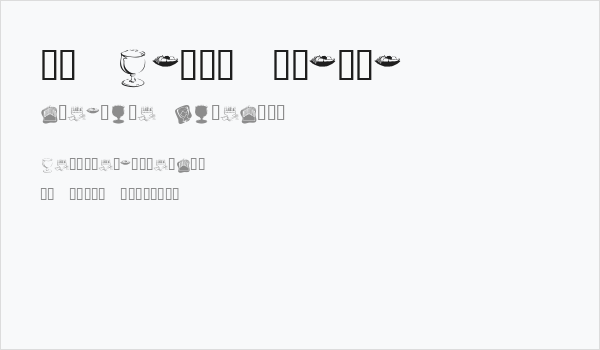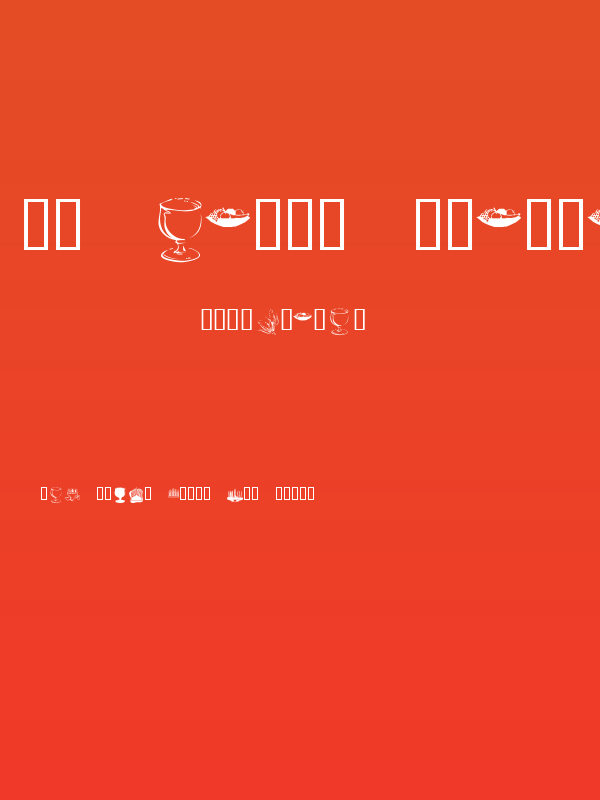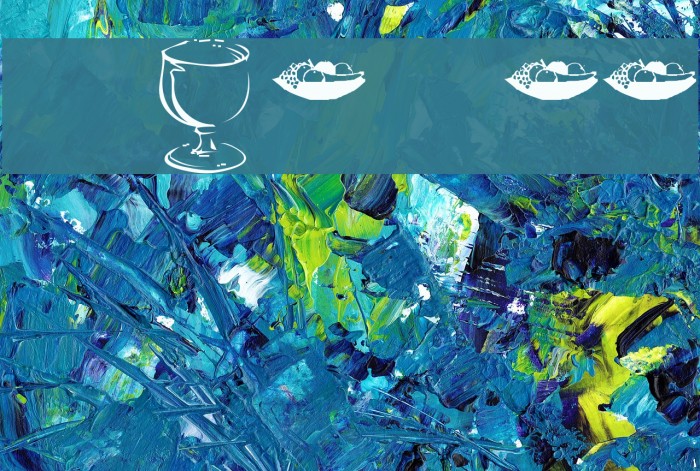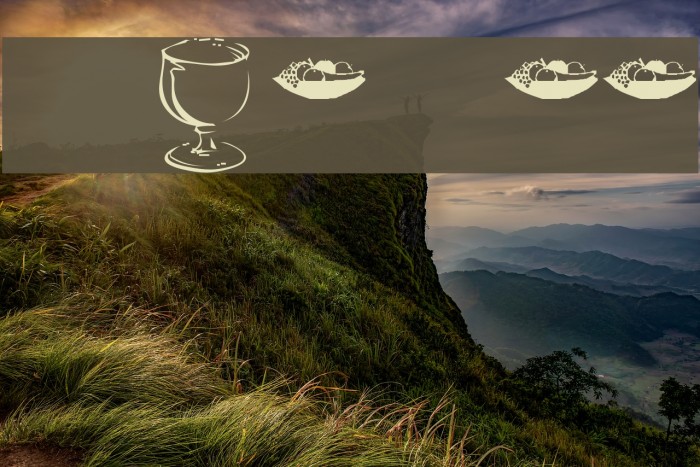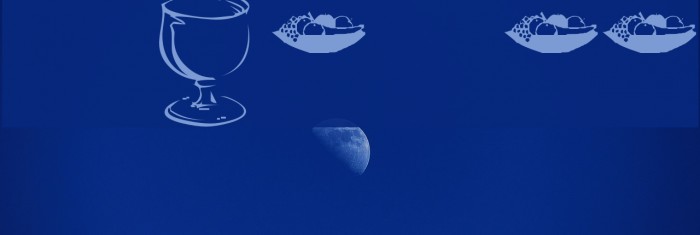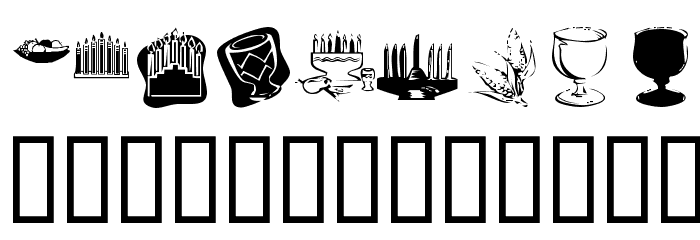
KR Happy Kwanza Font
KR Happy Kwanza Description
This decorative font is inspired by the cultural celebration of Kwanzaa, featuring symbols and imagery associated with the holiday. Each character is represented by an icon, such as candles, cups, and traditional motifs, creating a festive and thematic appearance. The design is bold and visually striking, making it suitable for projects that aim to capture the essence of Kwanzaa. The icons are detailed and distinct, providing a unique way to convey messages related to the celebration.
| Use Case | Logos, Headlines, Decorative text |
| Proposed Projects | Ideal for holiday cards, event invitations, educational materials about Kwanzaa, and festive decorations. |